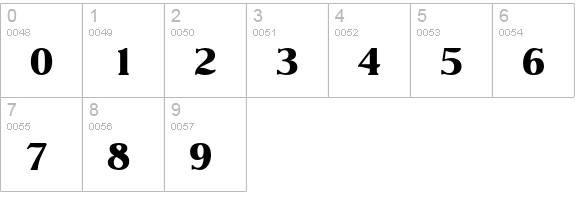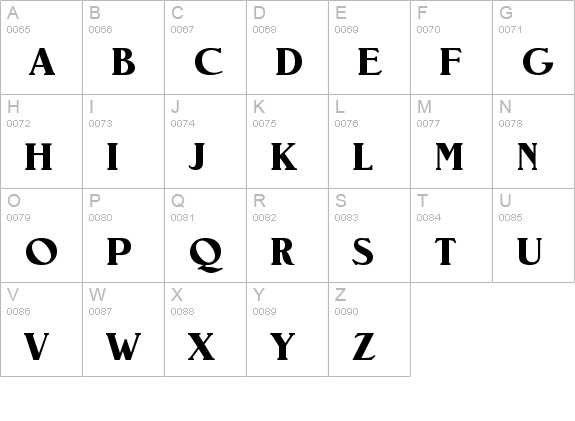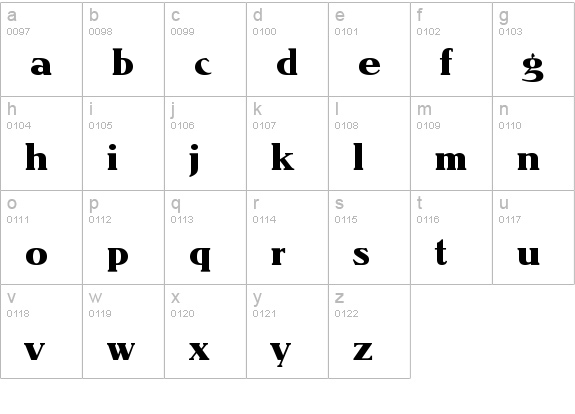
NevadaEF-Bold is a strong, high-contrast variant in the NevadaEF typeface family \xE2\x80\x94 well suited to headlines, attention-grabbing titles, and strong calls-to-action.
NevadaEF-Bold is a modern and stylish typeface that effortlessly combines elegance with a touch of boldness. This versatile font is perfect for creating eye-catching designs that demand attention. Whether you're designing a logo, poster, or website, NevadaEF-Bold is sure to make your text stand out. What makes NevadaEF-Bold even more appealing is that it is available for free download at FontsMarket.com. This means you can easily access this high-quality font without any cost, making it a valuable addition to your font collection. With its clean lines and strong presence, NevadaEF-Bold is a must-have font for any designer looking to make a statement.